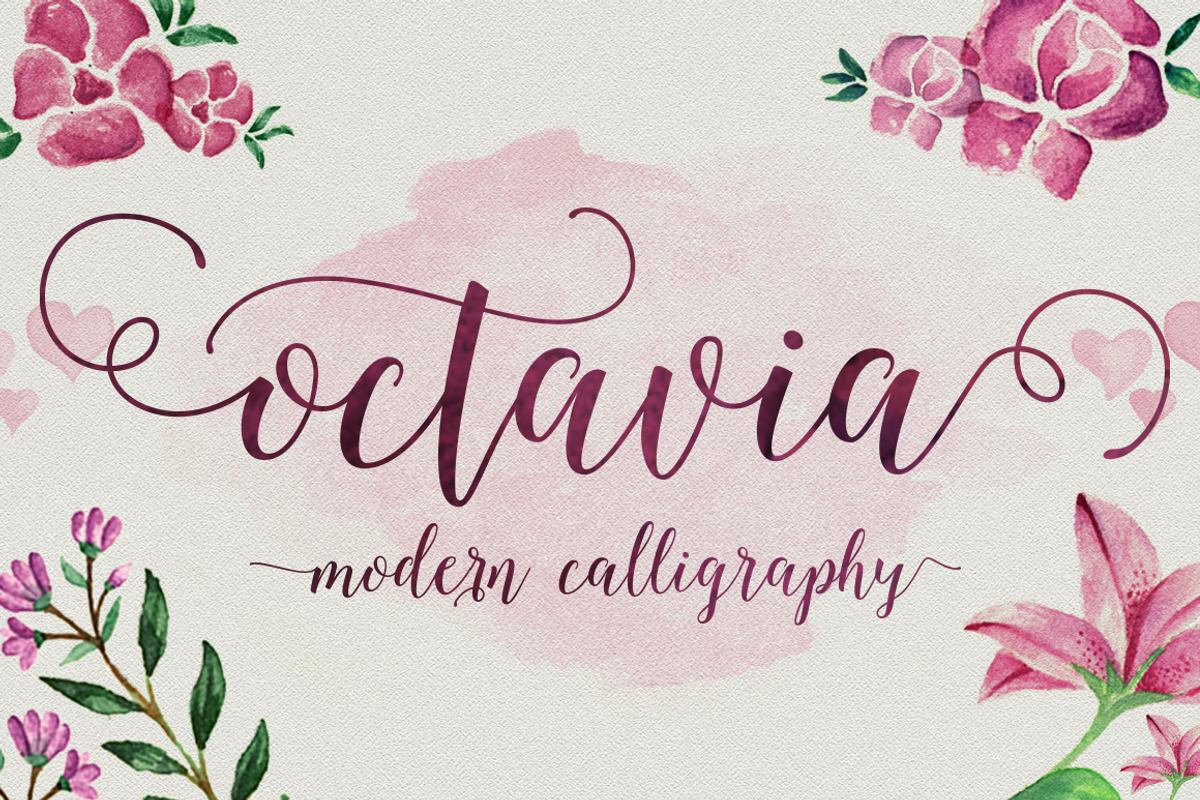
Please note, you must purchase this font for commercial use. However, you can easily download Octavia Script Font Free Download for personal use and testing purposes. Octavia Script Font is a beautiful and elegant handwritten script typeface that adds a personal touch to any design. With its flowing, smooth strokes, this font is perfect for wedding invitations, greeting cards, logos, branding, and more. The delicate curves and natural handwriting style make Octavia Script Font Free Download ideal for projects that need a graceful and artistic appearance. Whether you're designing a romantic invitation or a creative brand identity, this font will elevate your project with its elegant, sophisticated feel. Download Octavia Script Font Free Download today and explore its potential before opting for a commercial license.